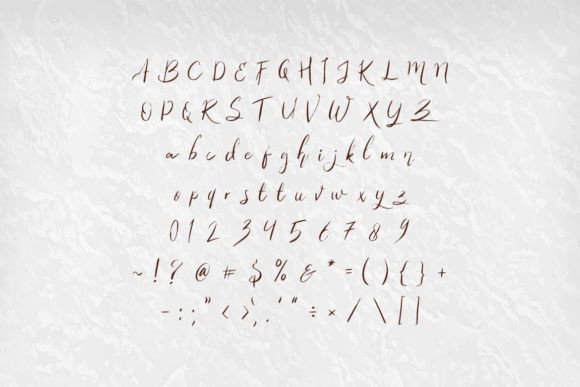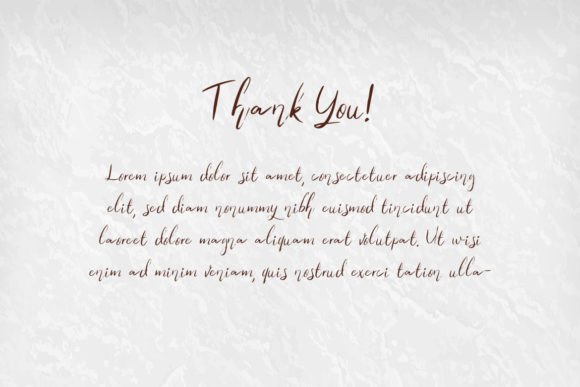
Introducing Amal Sae Font: Elevate Your Designs with Elegance
Are you on the hunt for a font that adds a touch of sophistication and elegance to your designs? Look no further than the Amal Sae Font. This dazzling script font is meticulously crafted with high attention to detail, making it a fantastic addition to any designer’s font library. Whether you’re working on a branding project, creating stunning wedding invitations, or crafting beautiful social media graphics, Amal Sae Font is sure to enhance your creations and leave a lasting impression.
What Makes Amal Sae Font Stand Out?
Amal Sae Font boasts a unique and stylish script style that exudes elegance and refinement. Its neat and highly detailed craftsmanship ensures that it looks great in both digital and print formats. Here are some key features that make Amal Sae Font a must-have for designers and crafters:
- Versatility: This font is incredibly versatile and can be used for a wide range of design projects, from logos and branding to invitations, posters, and more.
- Elegant Script Style: Amal Sae Font features a beautiful script style that adds a touch of sophistication to any design.
- Highly Detailed: The font is meticulously crafted with high attention to detail, ensuring that it looks great in both digital and print formats.
- Easy to Read: Despite its elegant and cursive nature, Amal Sae Font is easy to read, making it perfect for body text and headings.
Uses of Amal Sae Font
Amal Sae Font is a versatile font that can be used for a variety of design projects. Here are some ideas to get you started:
- Branding and Logo Design: Use Amal Sae Font to create stunning logos and branding materials that exude elegance and sophistication.
- Wedding Invitations: Add a touch of romance and elegance to your wedding invitations with Amal Sae Font.
- Social Media Graphics: Use Amal Sae Font to create beautiful social media graphics that stand out from the crowd.
- Posters and Flyers: Create eye-catching posters and flyers with Amal Sae Font that grab attention and leave a lasting impression.
Tips for Using Amal Sae Font
Here are some tips for using Amal Sae Font to get the most out of this beautiful font:
- Pair it with a Sans-Serif Font: Pair Amal Sae Font with a sans-serif font to create a beautiful contrast and add visual interest to your designs.
- Use it for Headings: Use Amal Sae Font for headings and titles to add a touch of elegance and sophistication to your designs.
- Experiment with Colors: Experiment with different colors and textures to add depth and visual interest to your designs.
In conclusion, Amal Sae Font is a stunning script font that is sure to elevate your designs and add a touch of elegance and sophistication. Its versatility, elegant script style, and highly detailed craftsmanship make it a must-have for designers and crafters. Whether you’re working on a branding project, creating stunning wedding invitations, or crafting beautiful social media graphics, Amal Sae Font is sure to enhance your creations and leave a lasting impression.
- What is Amal Sae Font? Amal Sae Font is a dazzling script font that is meticulously crafted with high attention to detail.
- What is Amal Sae Font used for? Amal Sae Font can be used for a wide range of design projects, including branding, logos, invitations, posters, and more.
- Is Amal Sae Font easy to read? Yes, Amal Sae Font is easy to read, making it perfect for body text and headings.